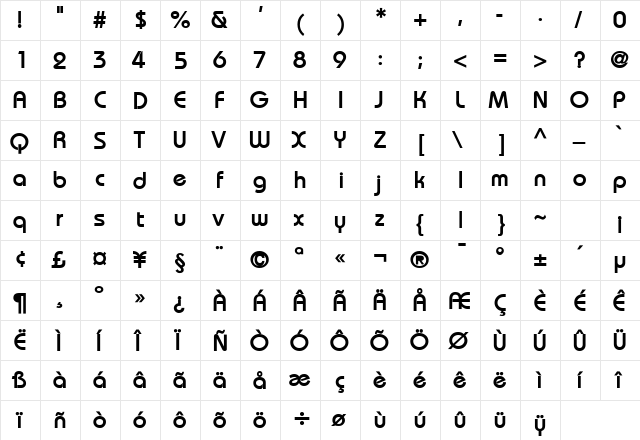
Bimini Bold
Design Context for Bimini Typeface
Bimini offers clean, dependable letterforms without strong stylistic allegiance, making it a practical choice for designers who need flexibility. Its bold stroke weight gives it real presence on the page.